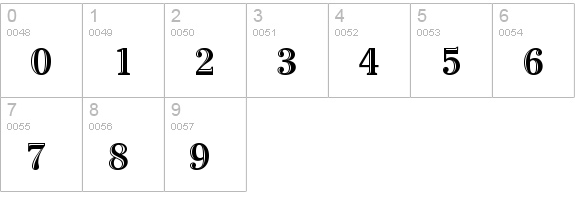
CheltenhamHandtEF-Bold is a strong, high-contrast variant in the CheltenhamHandtEF typeface family \xE2\x80\x94 well suited to headlines, attention-grabbing titles, and strong calls-to-action.
CheltenhamHandtEF-Bold is a striking and bold font that exudes elegance and sophistication. With its strong, clean lines and classic design, this font is perfect for creating eye-catching titles and headings. The bold weight of the letters commands attention and adds a touch of modernity to any project. What sets CheltenhamHandtEF-Bold apart is not only its timeless appeal but also the fact that it is available for free download at FontsMarket.com. Whether you're working on a branding project, a poster design, or any other creative endeavor, this font will elevate your work to the next level. Don't miss out on the opportunity to enhance your designs with this exceptional typeface, now freely accessible at FontsMarket.com.